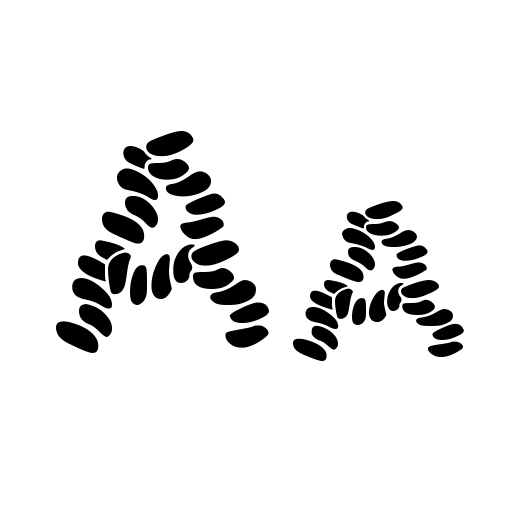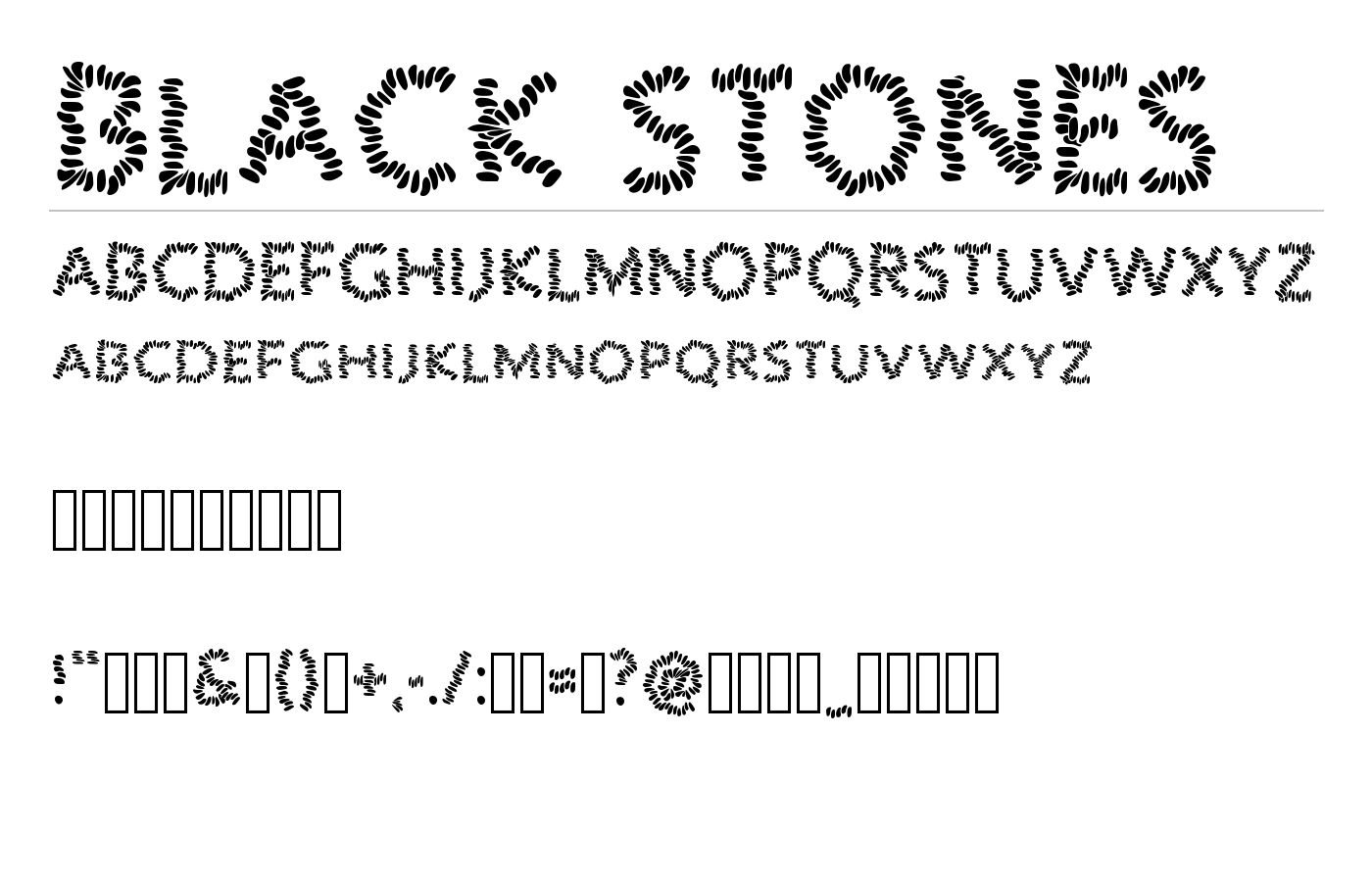
BLACK STONES is a bold, decorative display font that features a unique pattern of clustered, rounded shapes forming each letter, giving it a playful and textured appearance. This all-caps design works best for eye-catching headlines, logos, and creative projects where a quirky, modern vibe is desired, adding a lively and distinctive touch without sacrificing legibility. Its artistic style makes it ideal for branding and posters that want to stand out with a fun and memorable personality.
BLACK STONES Font
About BLACK STONES Font
| Font family | BLACK STONES Font |
| Designer | Martin Steiner |